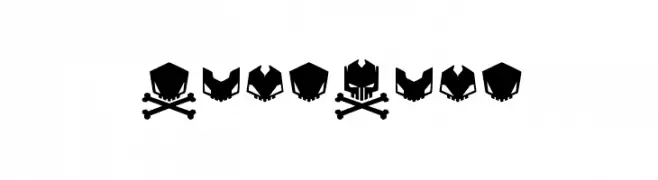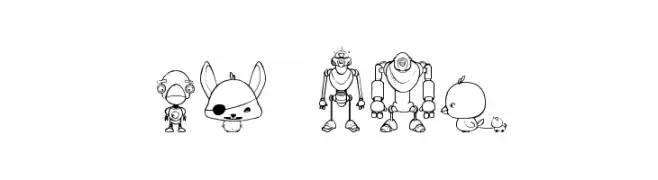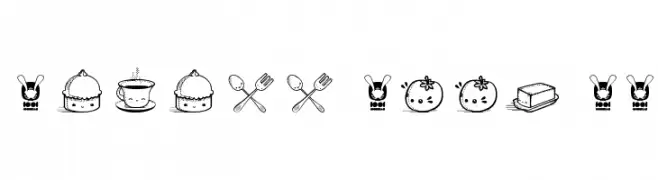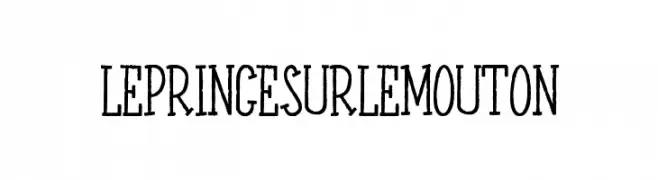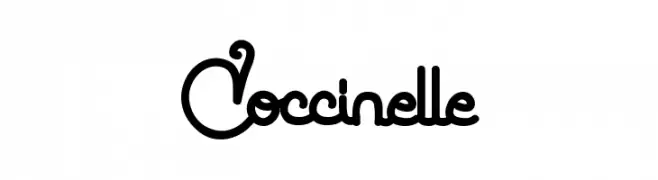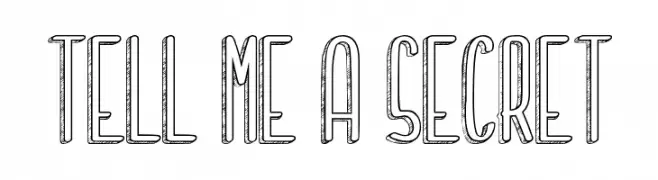
( Fonts by Maelle.K - Thomas Boucherie )
A bold, decorative font with skull and crossbones motifs.
( Fonts by Maelle.K - Thomas Boucherie )
A playful decorative font with unique cartoon character illustrations.
( Fonts by Maelle.K - Thomas Boucherie )
Hand-drawn kawaii food and kitchen icon dingbat font.
( Fonts by Maelle.K - Thomas Boucherie )
A whimsical, space-themed decorative font with intricate celestial illustrations.
( Fonts by Maelle.K - Thomas Boucherie )
A playful, hand-drawn font with a whimsical and artistic style.
( Fonts by Maelle.K - Thomas Boucherie )
A playful, handwritten font with interconnected, flowing characters.
( Fonts by Maelle.K - Thomas Boucherie )
The image features decorative animal and character icons, not a font.
( Fonts by Maelle.K - Thomas Boucherie )
A tall, narrow, and modern font with consistent stroke width and close character spacing.
( Fonts by Maelle.K - Thomas Boucherie )
A whimsical, elongated font with a hand-drawn, monoline style.
( Fonts by Maelle.K - Thomas Boucherie )
A whimsical, decorative font with thin strokes and heart motifs.